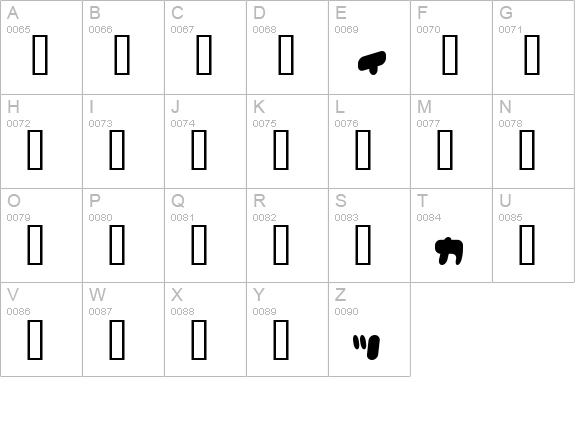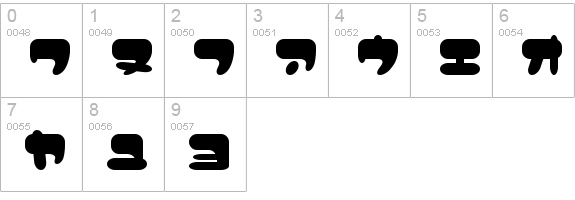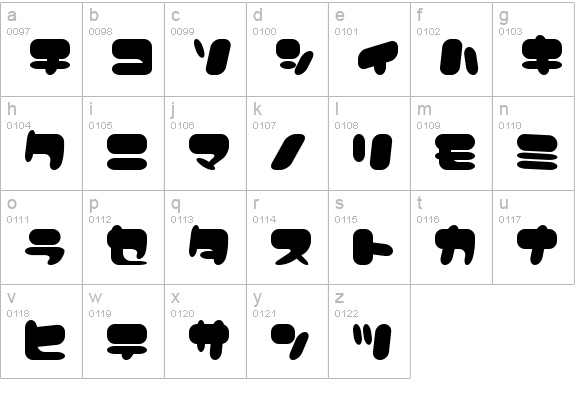
I2Viï¿¿amintableï¿¿ J Font Details
Introducing the I2Viï¿¿amintableï¿¿ J font, a stunning and versatile typeface that is sure to captivate and elevate any design project. This font exudes a sense of elegance and sophistication, making it perfect for a wide range of applications, from branding and logo design to editorial layouts, packaging, and more. With its clean lines and contemporary style, I2Viï¿¿amintableï¿¿ J font effortlessly combines modernity with a touch of classic charm. Each letter is meticulously crafted, ensuring legibility and readability in both large and small sizes. The balanced proportions and distinct character shapes add a unique flair, making this font stand out from the crowd. One of the most remarkable features of I2Viï¿¿amintableï¿¿ J font is that it is freely available to download at FontsMarket.com. This means that you can easily access and use this incredible font in your design projects without any cost. Whether you are a professional designer or an enthusiast looking to add a touch of creativity to your personal projects, this free font is a valuable addition to your font library. The versatility of I2Viï¿¿amintableï¿¿ J font is truly remarkable. Its wide range of weights and styles allows you to experiment with different typographic variations, creating endless possibilities for your designs. Whether you prefer a bold and impactful statement or a more subtle and refined look, this font has got you covered. Furthermore, the I2Viï¿¿amintableï¿¿ J font is designed with utmost attention to detail, ensuring seamless integration into various design software and platforms. It is compatible with both Mac and Windows operating systems, making it accessible to a wide range of users. In conclusion, the I2Viï¿¿amintableï¿¿ J font is a must-have for any designer or creative individual seeking an elegant and versatile typeface. With its timeless appeal and the added advantage of being freely available to download at FontsMarket.com, this font is a valuable asset that will undoubtedly elevate your design projects to new heights. So don't miss out on this incredible opportunity to enhance your creative endeavors and download I2Viï¿¿amintableï¿¿ J font today!